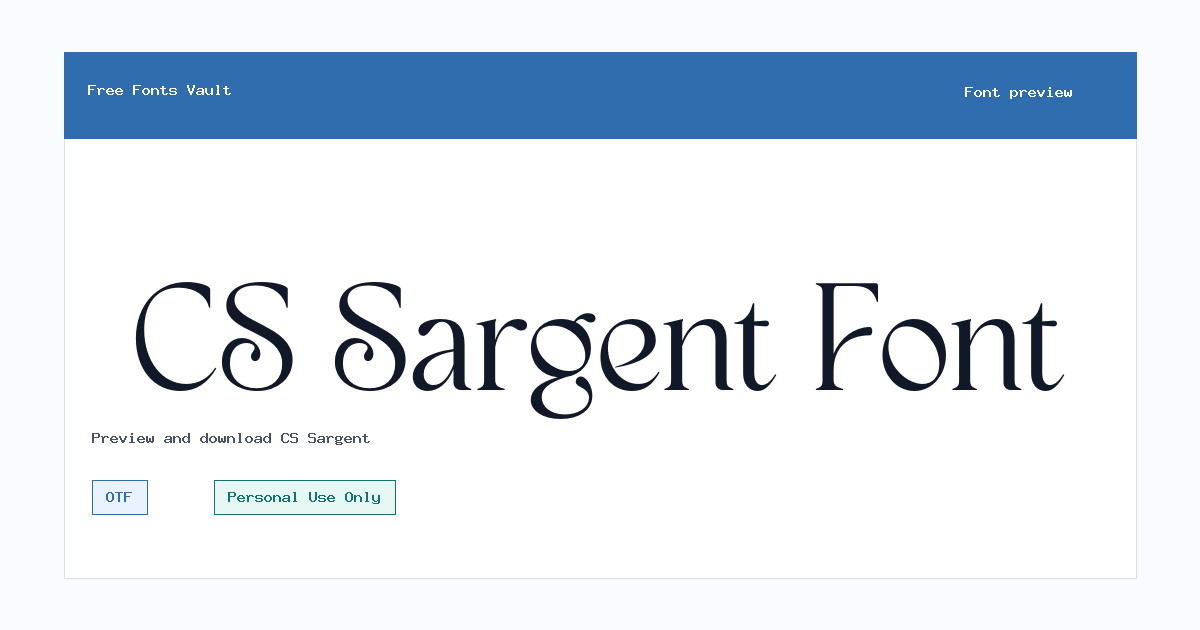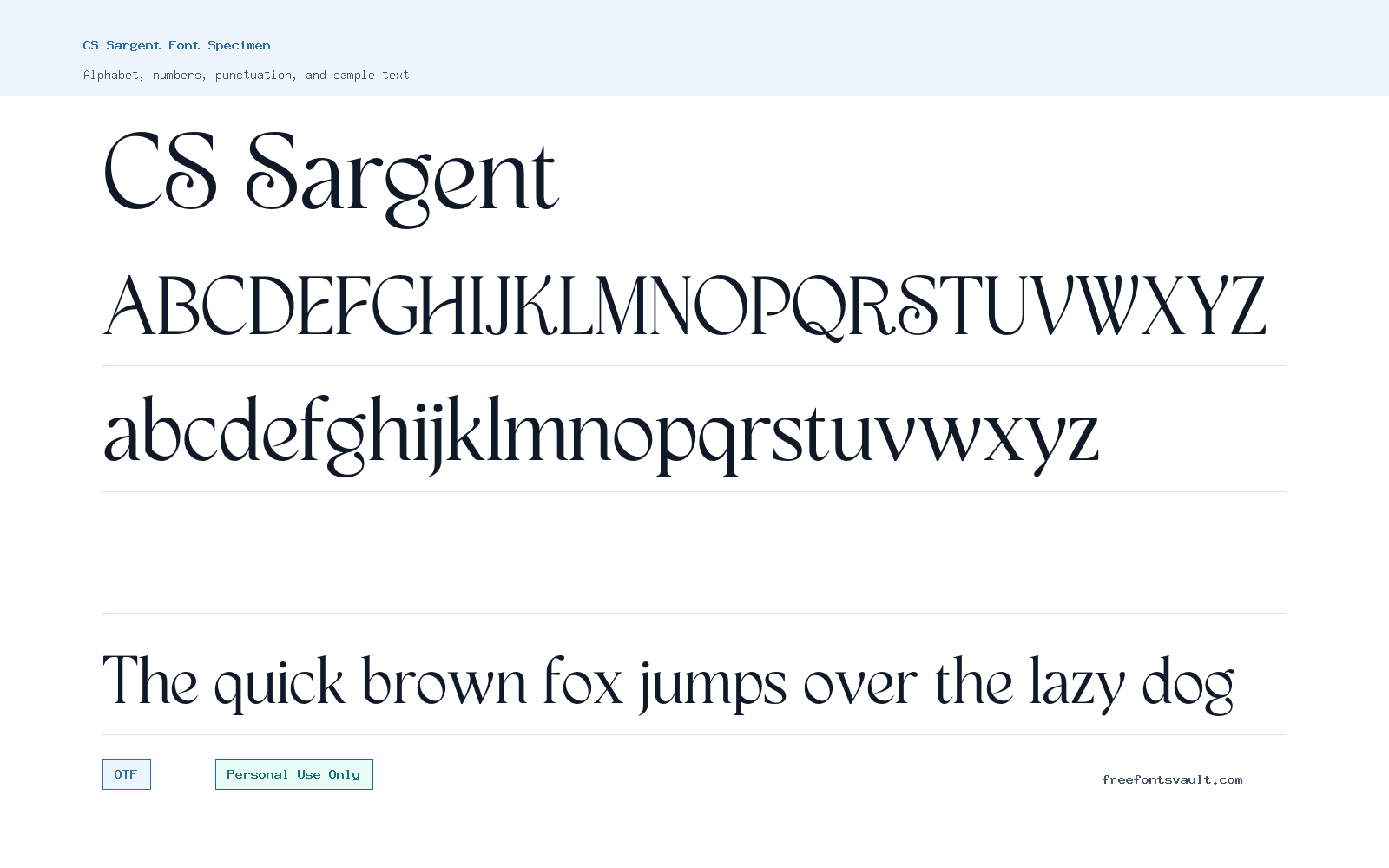
CS Sargent
CS Sargent font.
CS Sargent is a serif font from Craft Supply Co, offered as a regular OTF font file for personal-use projects. It is a good font to test when you want a clean serif voice for display text, title work, or visual drafts before committing to a full design system.
About CS Sargent Font
CS Sargent has the practical appeal of a serif typeface built for short, noticeable text. Since the downloadable file is the regular style, it is best approached as a straightforward display or heading option rather than a large multi-weight family. Try it first in the live preview with your own wording, especially if you plan to use it for names, titles, packaging mockups, invitations, social graphics, or website hero text.
For visitors comparing fonts, the most useful test is scale. Type a few words in uppercase, title case, and a short sentence, then check how the spacing feels at poster size and at smaller caption sizes. Serif fonts can look polished in headlines, but they do not always stay comfortable in long paragraphs, so avoid judging it from a single word preview. If you need body text, pair CS Sargent with a simple sans serif and keep the serif for emphasis.
- Serif category makes it suitable to preview for headings, titles, and short decorative text.